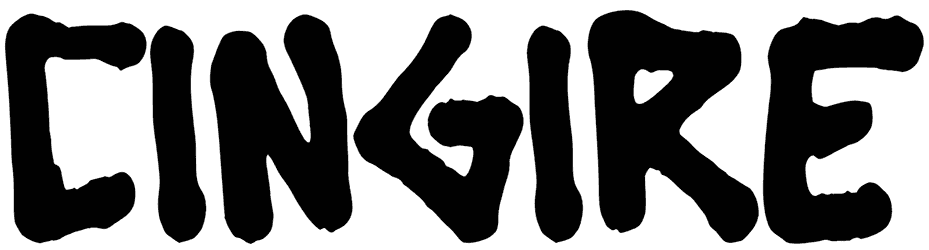
Cingire Font
Designed byYahhya Anas
If you want to have a hand style and bold outward to bedight your daunting design, don’t lose Cingire. This horror font doesn’t have any offer for lowercase letters and punctuation, but it can throw a distinct mood in your texts. You can put Cingire on a lot of chilling projects, such as flyers, covers, Halloween designs, or similar things, and show your creativity.